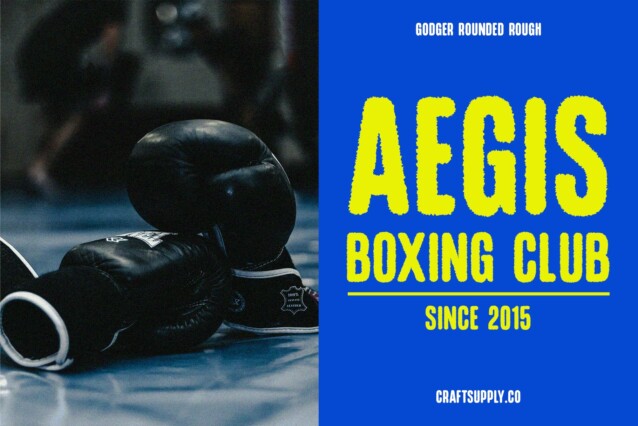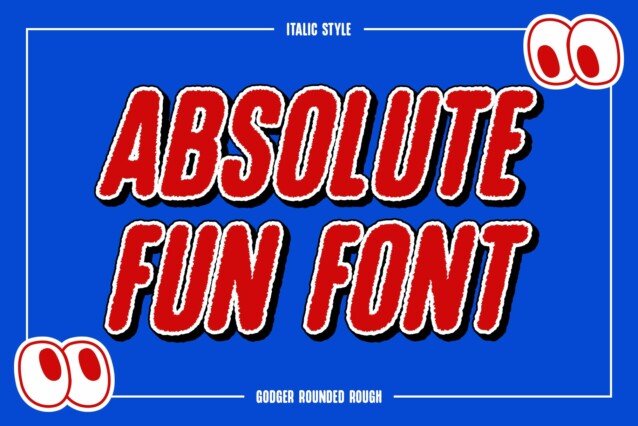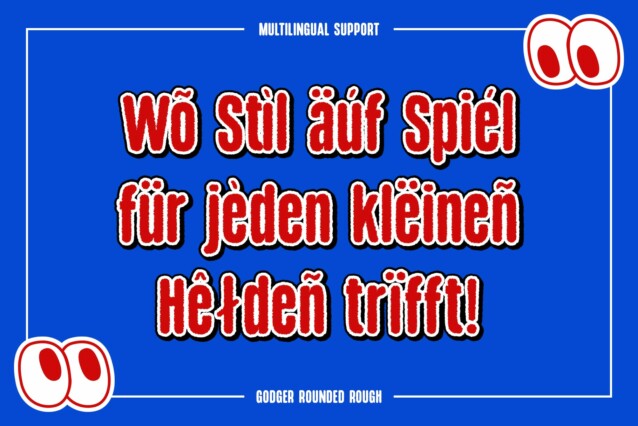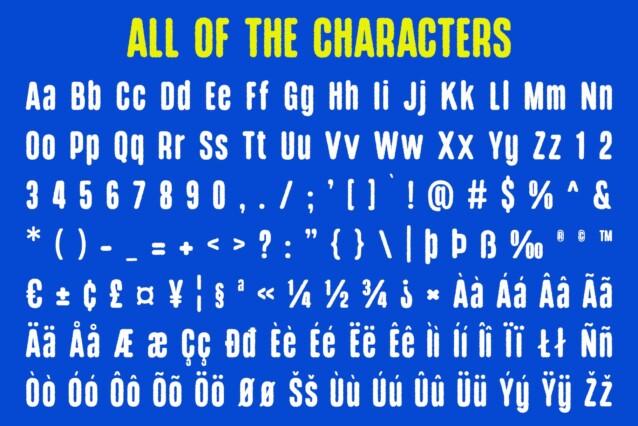
Godger Rounded Rough Font
Godger Rounded Rough Font is a modern sans-serif font that pairs bold, condensed shapes with rounded edges. Its robust and compact design ensures a strong visual impact, while the rounded contours soften the overall look, adding a friendly and approachable feel.